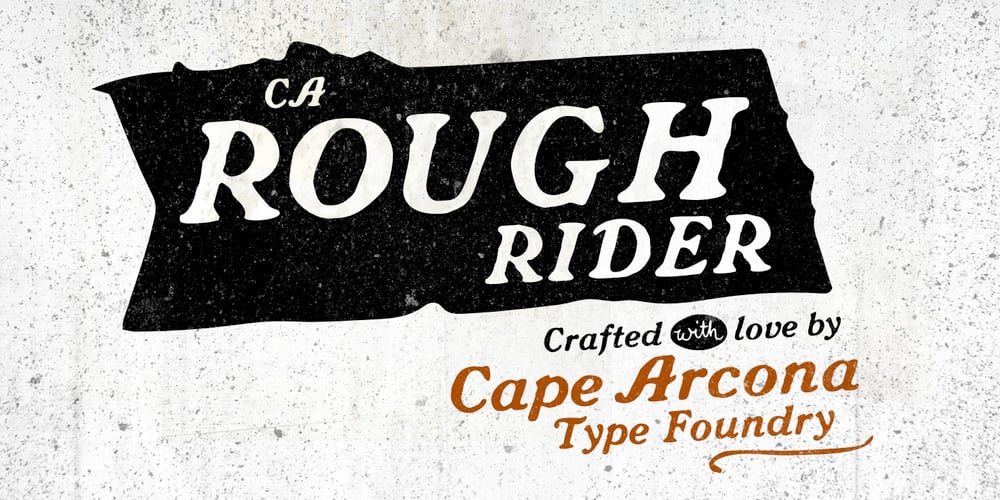
CA Rough Rider Font Family was designed by Stefan Claudius and published by Cape Arcona Type Foundry. CA Rough Rider contains 1 styles and family package options. Rough Rider is a handcrafted bold italic typeface. Intended as a rough display style typeface it’s perfect for illustrative titles, logotypes and small texts. Initially developed for a logo design, Rough Rider was expanded to a full Central European character set.